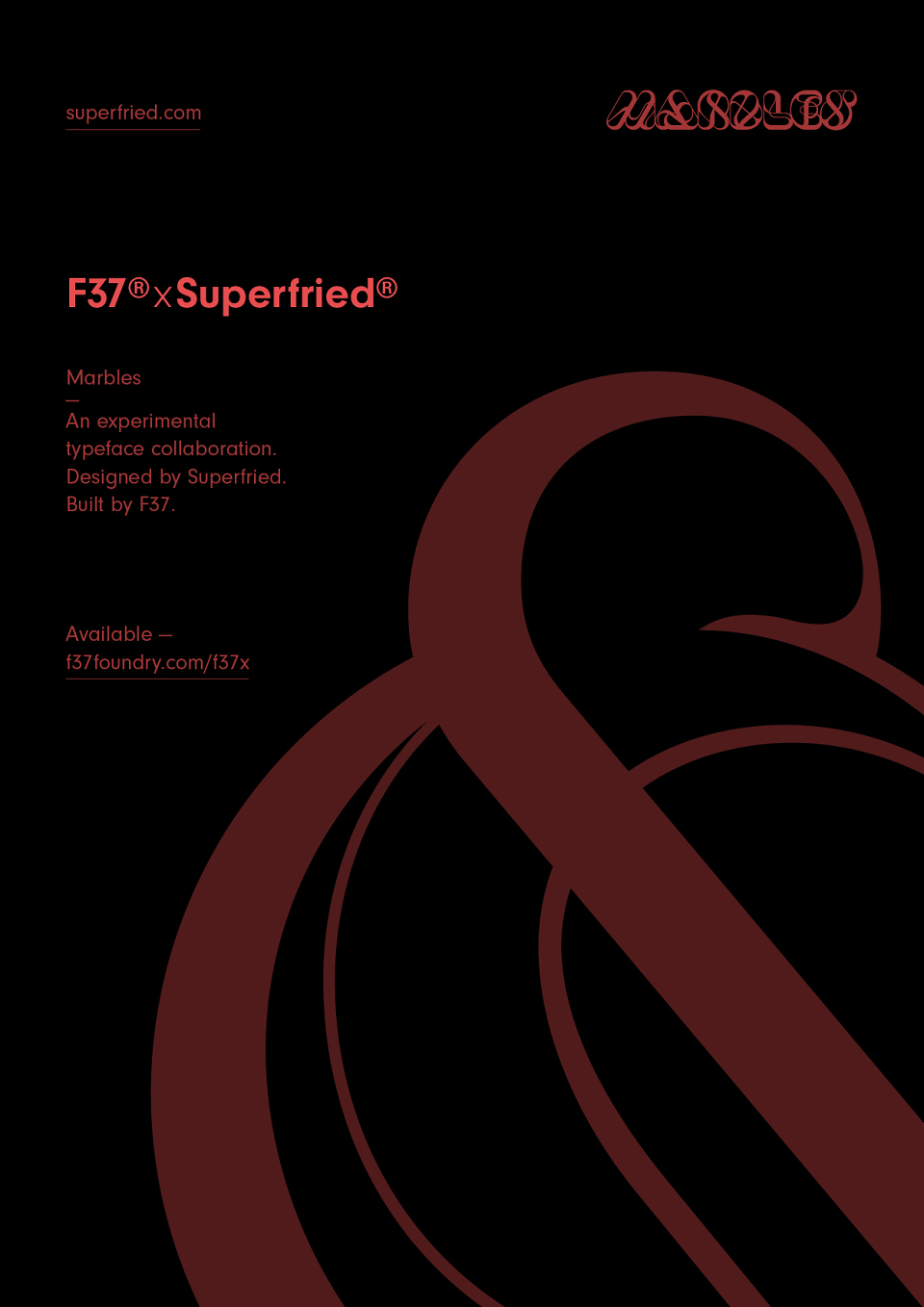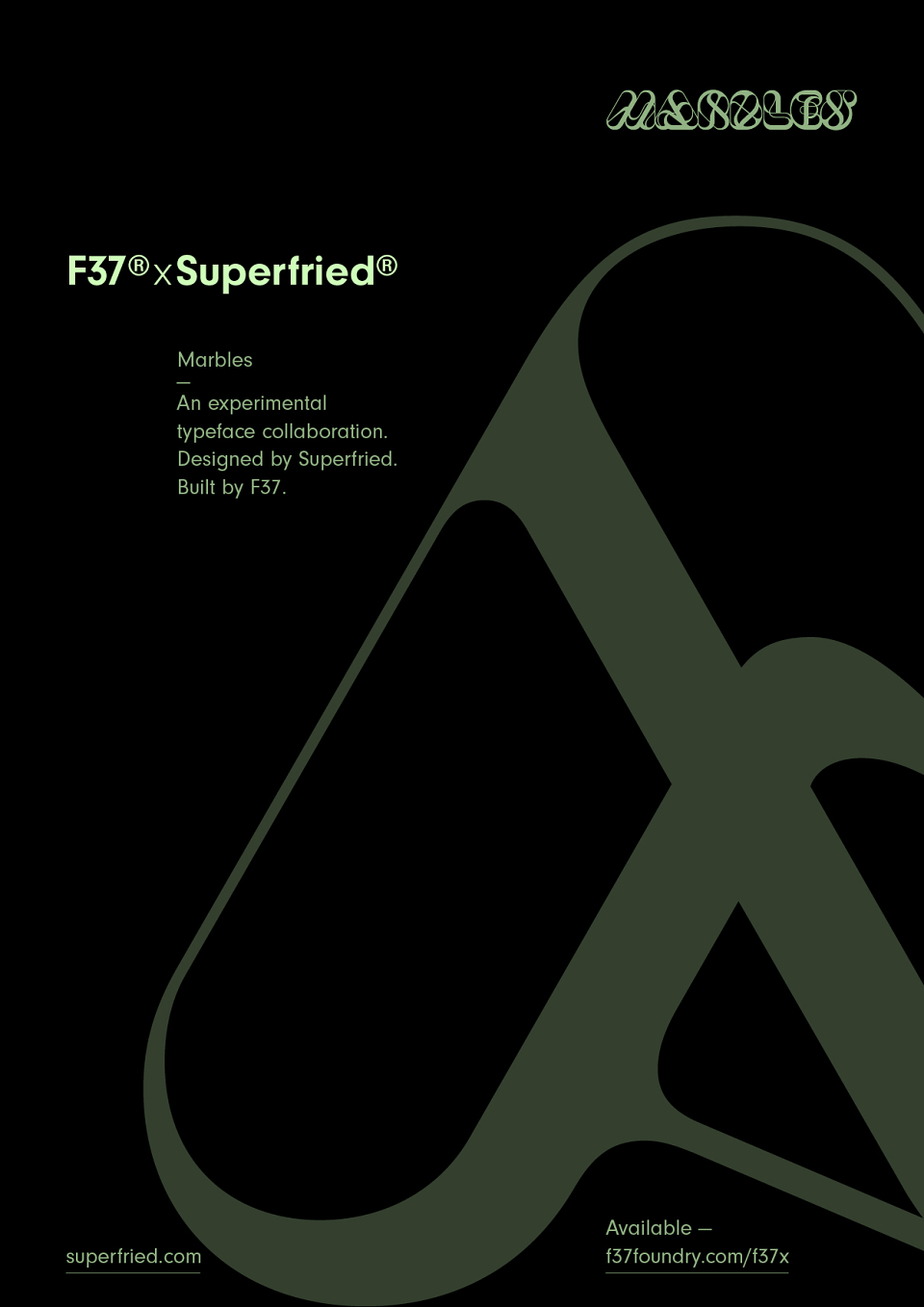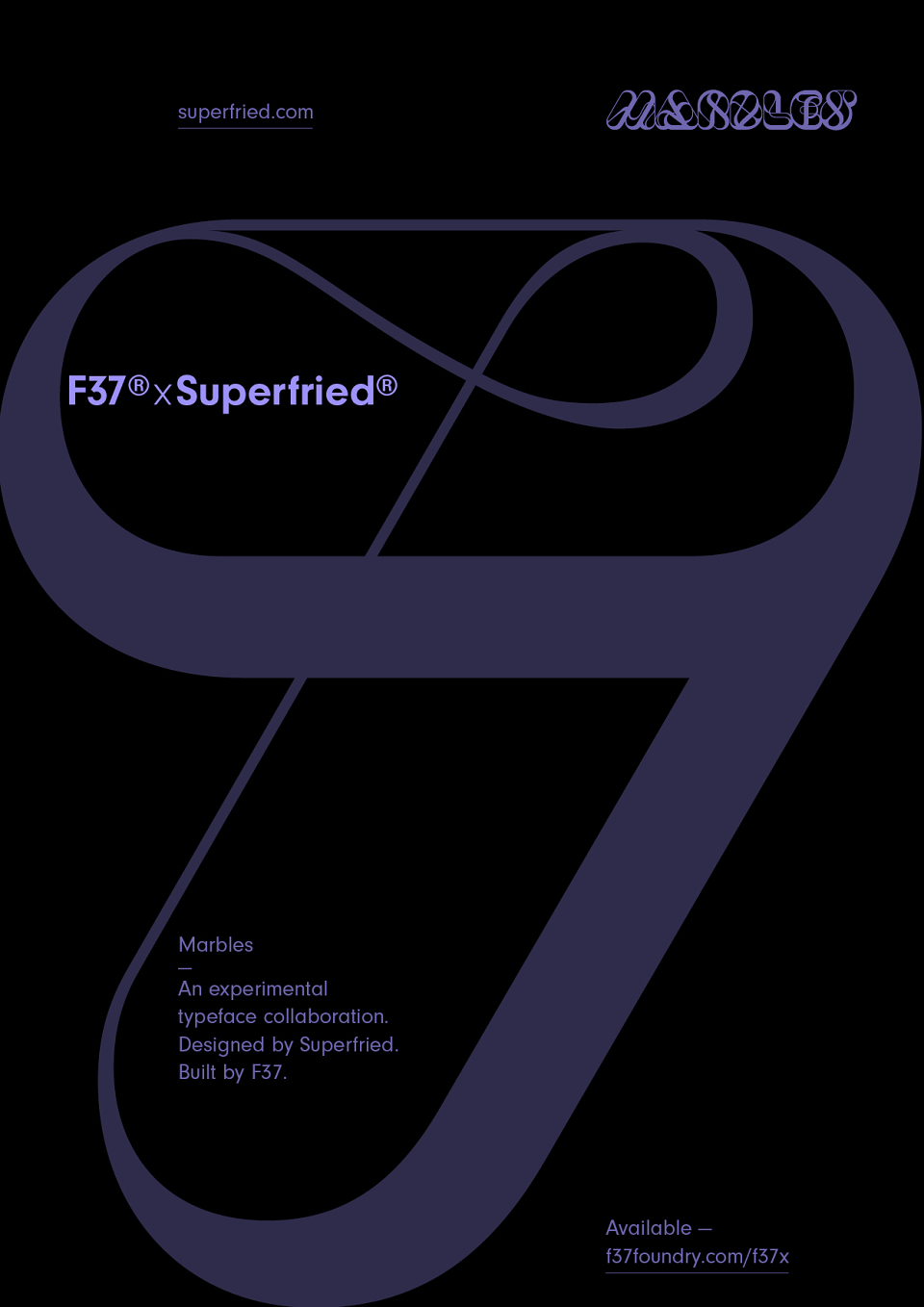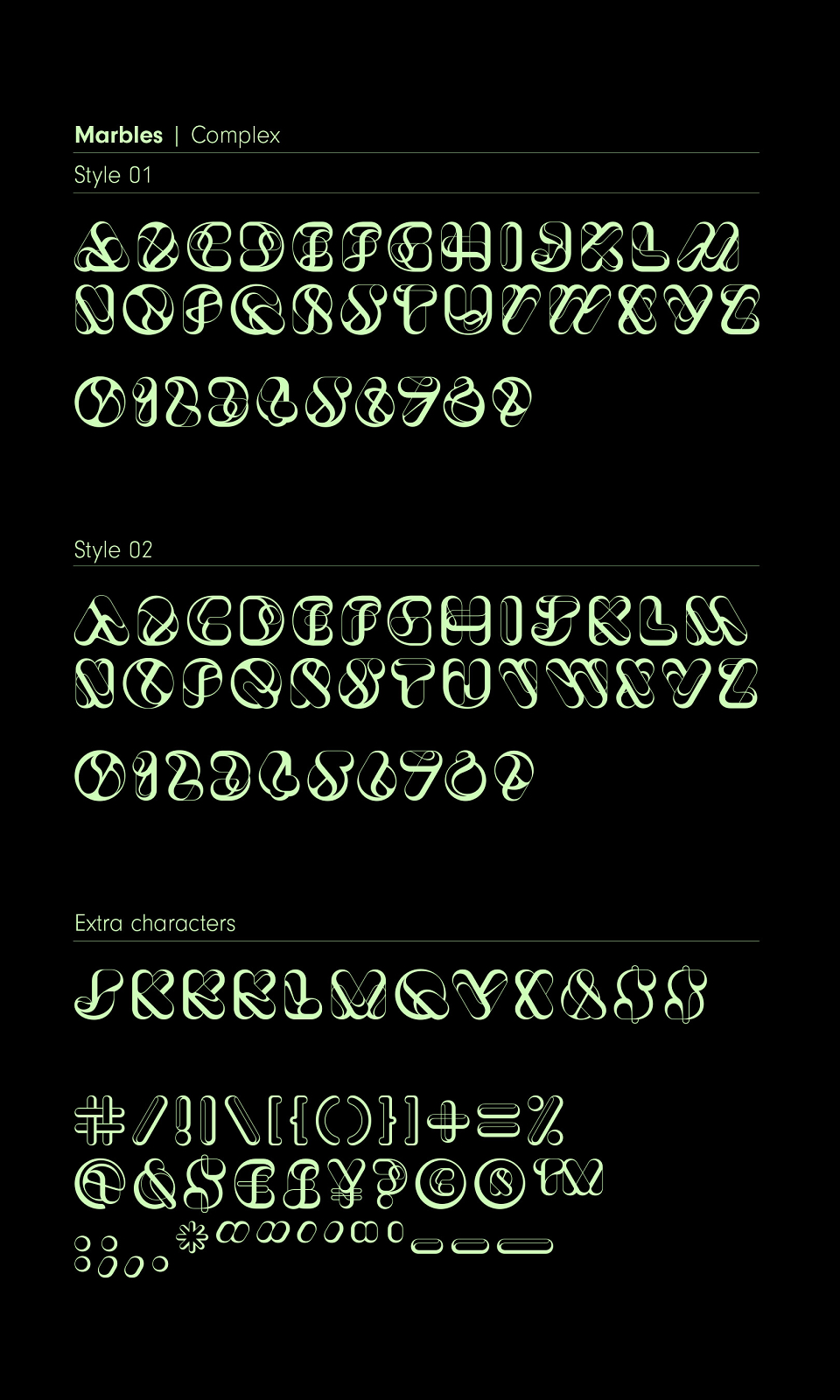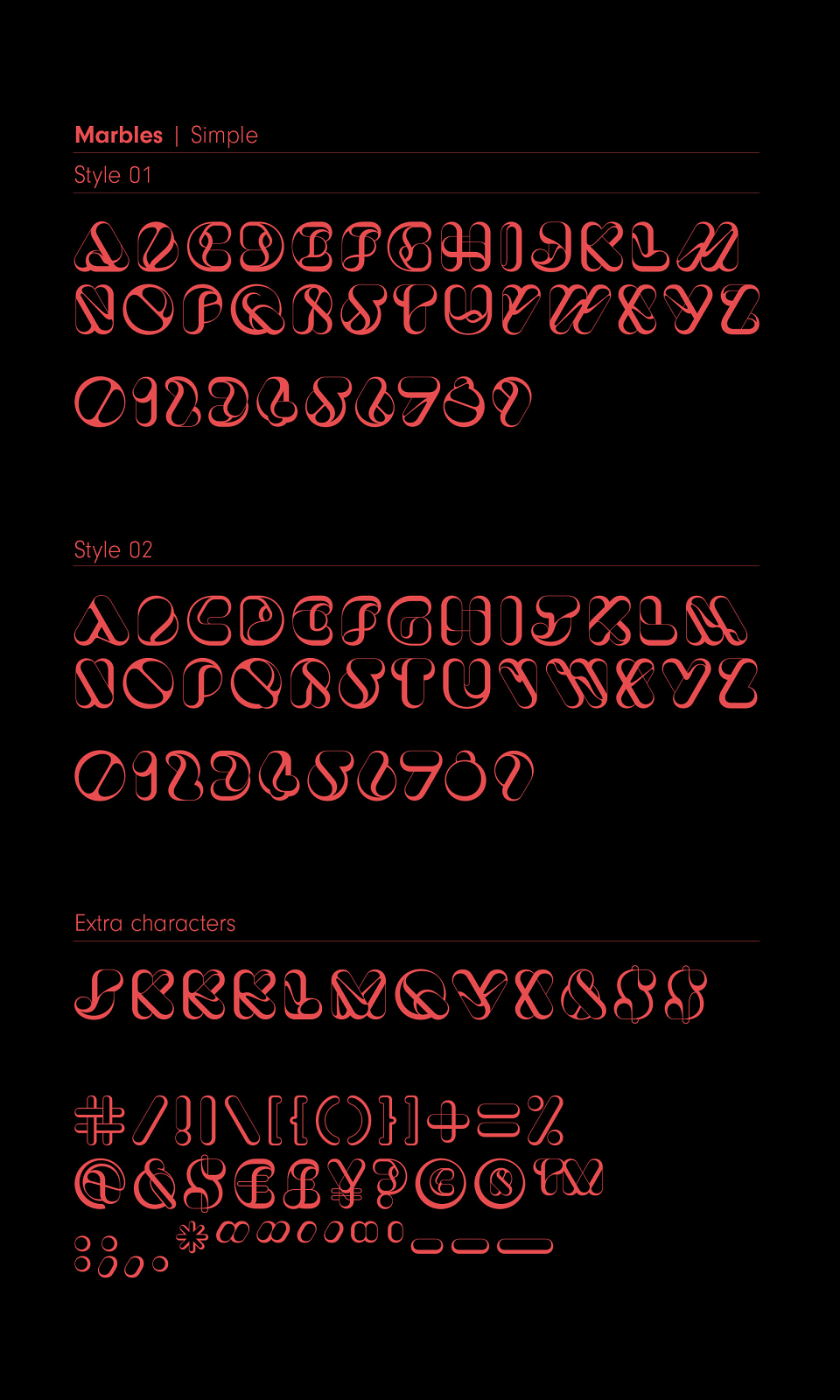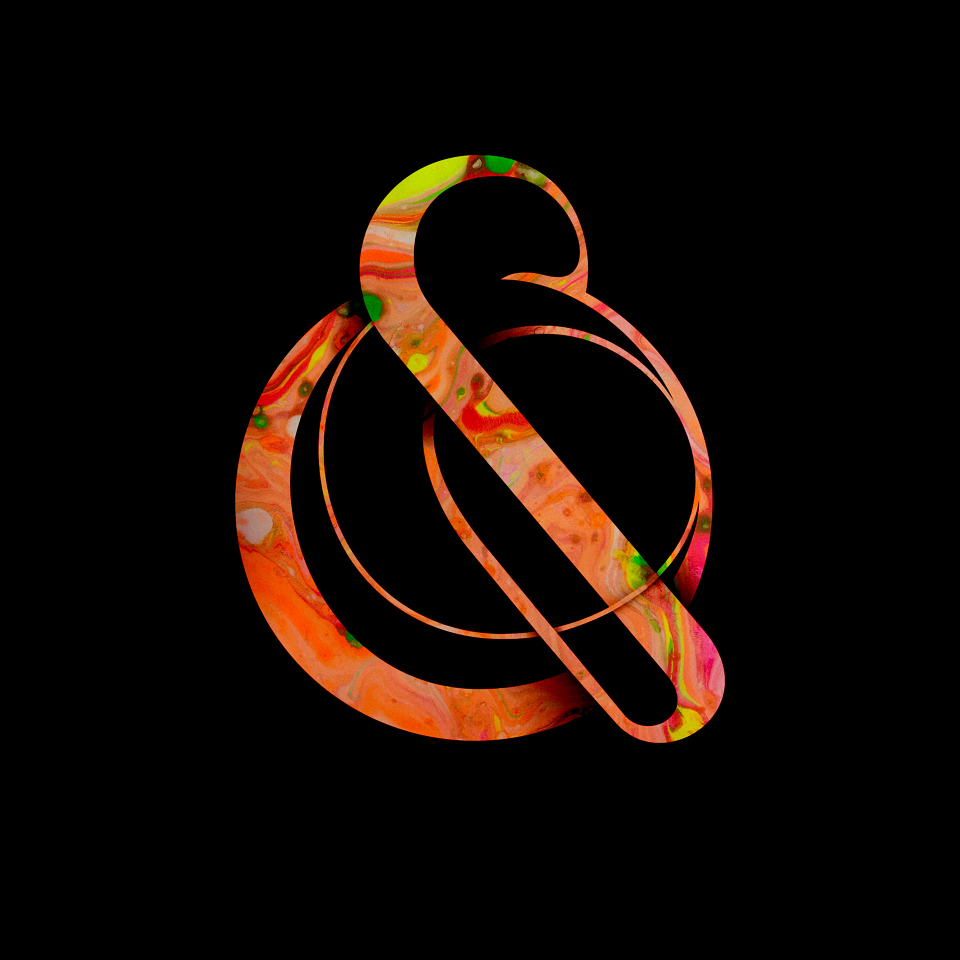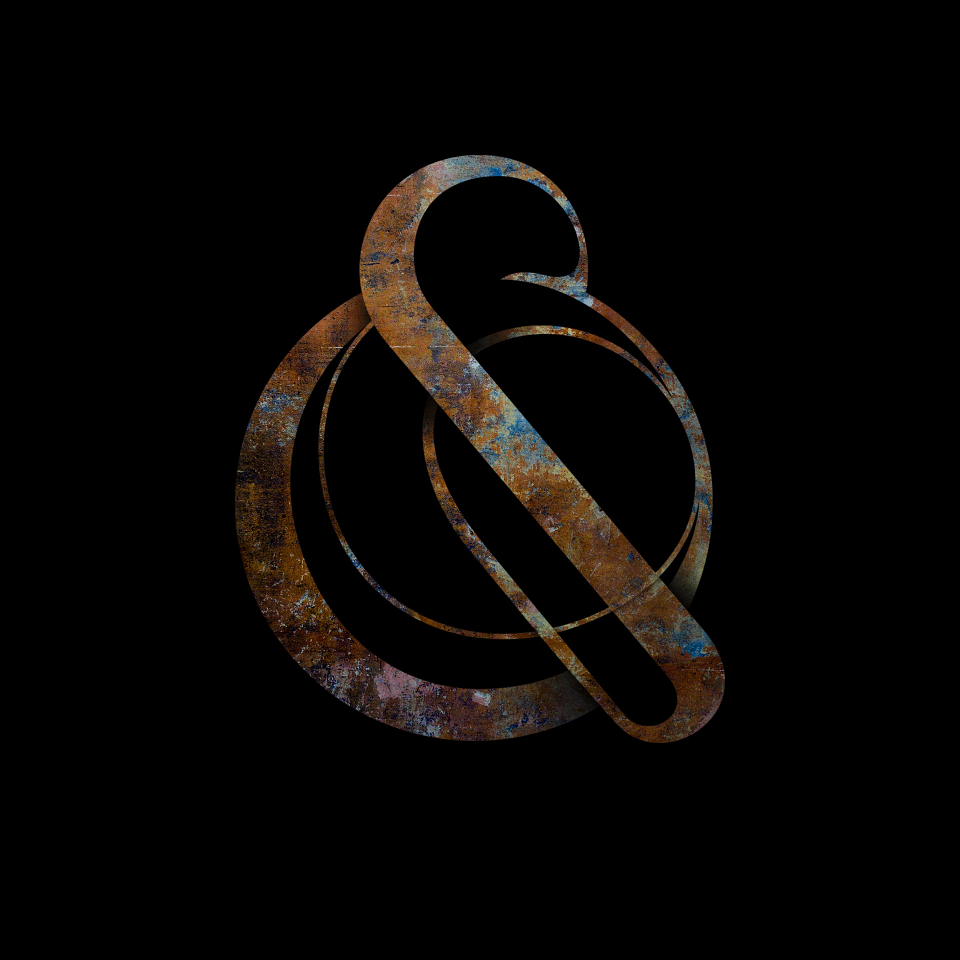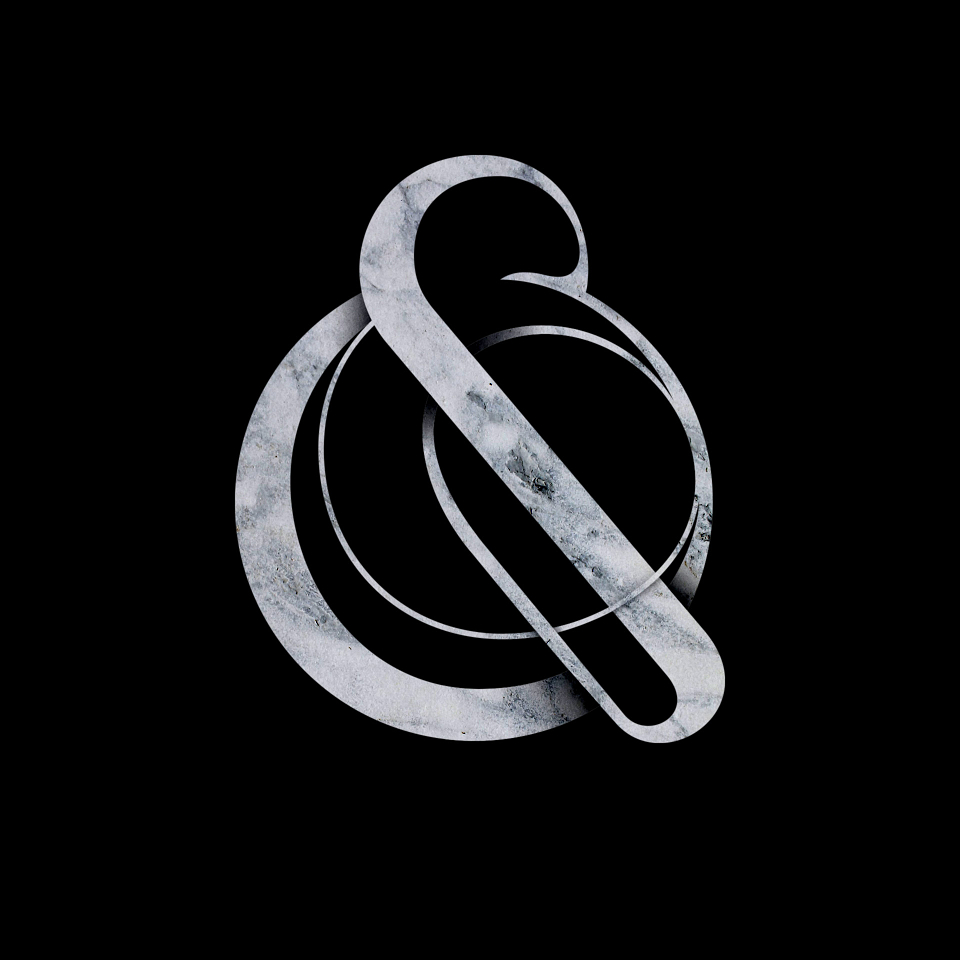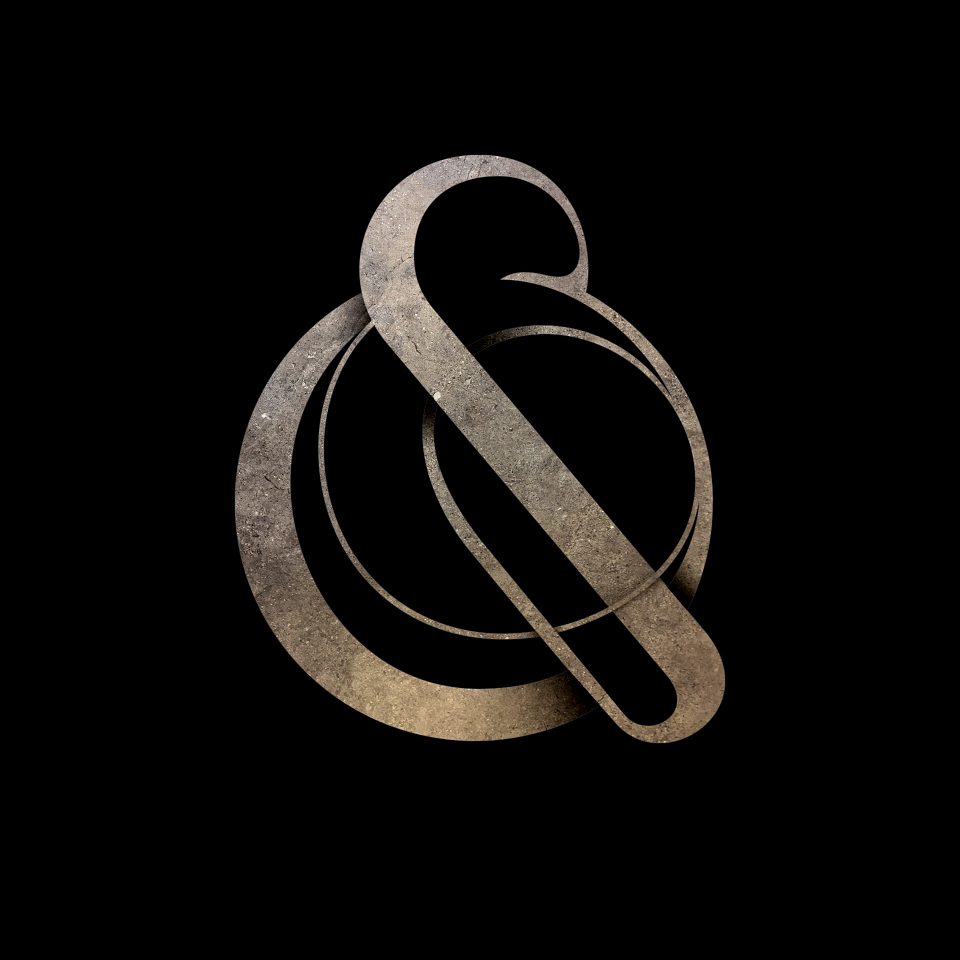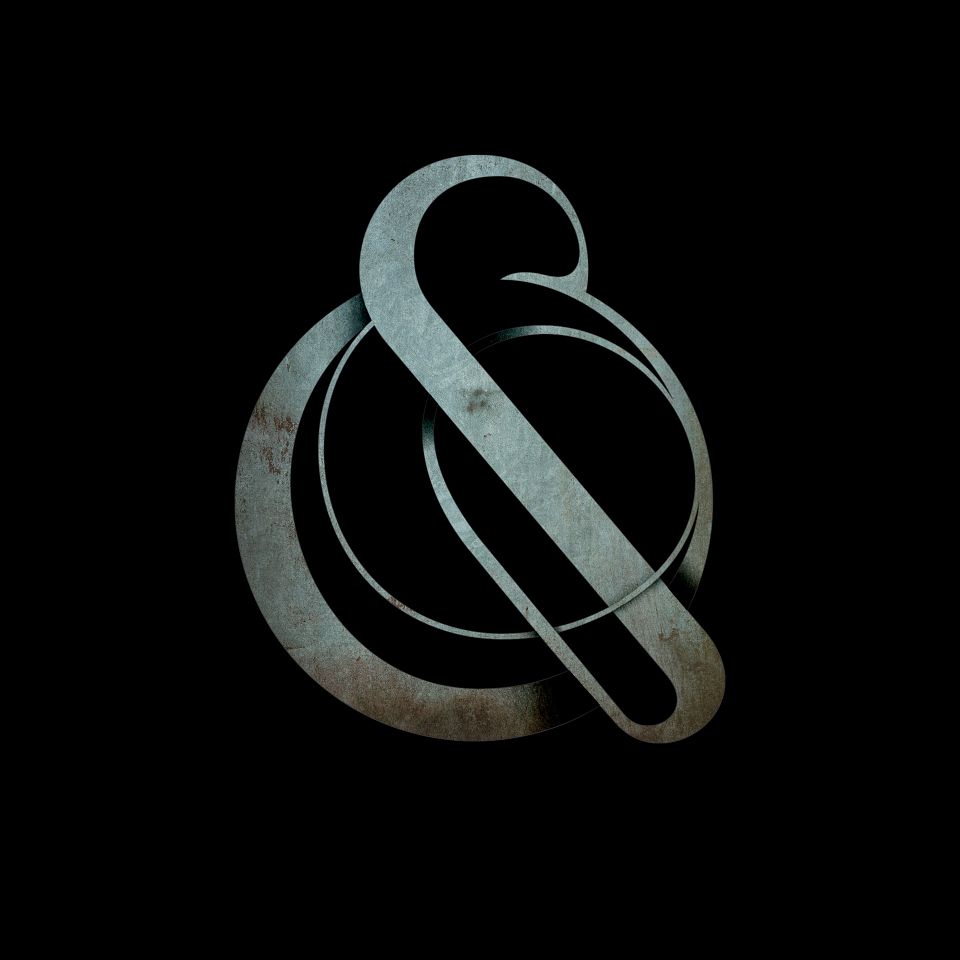
Back in 2016 a little typographic idea I proposed for a New York magazine project was turned down. That little idea was recycled and grew into a big personal project called Marbles. Marbles began as a very organic, fluid experimental set of 2D numerals. Further experimentation led to 3D renders, the style being adapted for submission to the Secret 7" charity project, numerous press features and even a Creativepool award for typography. The project truly demonstrated the power of personal projects and to never discard a good idea.
In addition to the numbers, I had started to develop some of the letters for a promotional Superfried sticker. But despite this, I had never imagined this typographic experiment would ever work as an actual typeface since the character forms were so complex and eccentric.
Seven years later I reached out to Rick Banks – founder of renowned type foundry F37 – re potential collaboration on a project. I had been a fan of both his design agency and type foundry for many years. I was totally unaware that they were in the process of developing a new offering – F37x. For this new collaborative project F37 develop the typographic ideas, designs and experiments of external creatives through to complete typefaces. Rick suggested that Marbles could be a suitable candidate. I was completely shocked, but immediately jumped at the opportunity.
I was quickly working with one of their team – Rodrigo – who made the process very simple. Whilst creating the additional glyphs, it became clear there were numerous ways they could be re-drawn. In the original numerals there was a complex and simplified route, so two styles were developed, the latter being more practical for use at smaller scale.
As the build progressed, so do did the volume of potential designs for the glyphs. Since the typeface would be solely uppercase, we gained a completely unused lowercase. With this in mind it was decided that we should take the opportunity to create a secondary set of characters for each typeface. We now had the potential for four styles and two typefaces.
Capitalising on the opportunity to add additional styles and glyphs led to an extremely versatile typeface family which allows the user to truly experiment – reflecting the personality of the original concept back in 2016.
F37 x Superfried – Marbles typeface